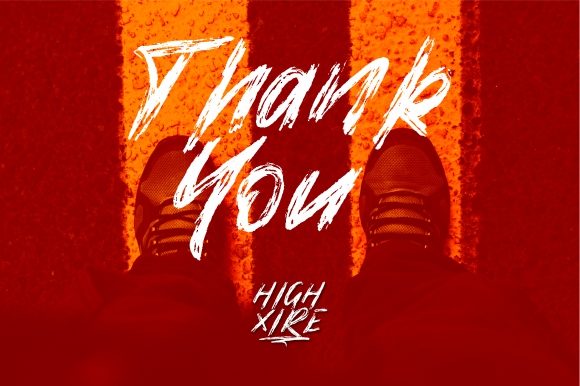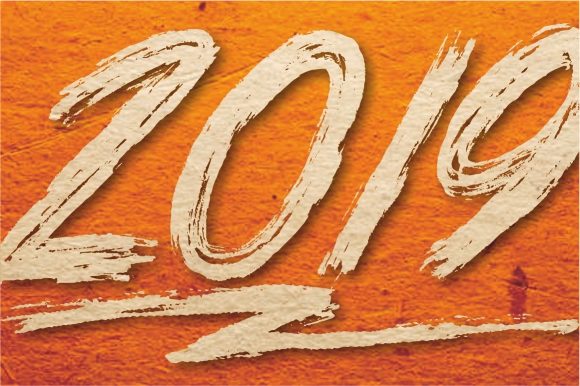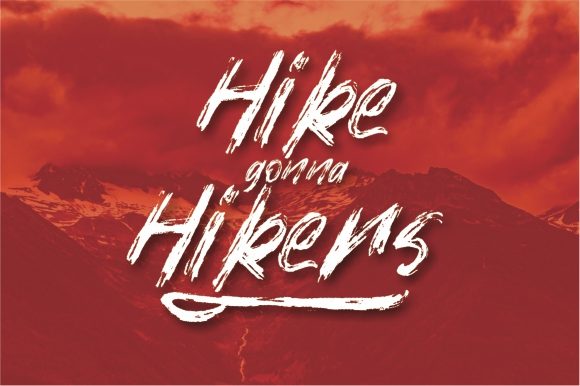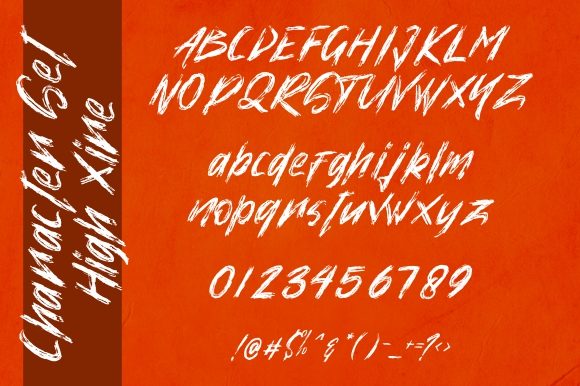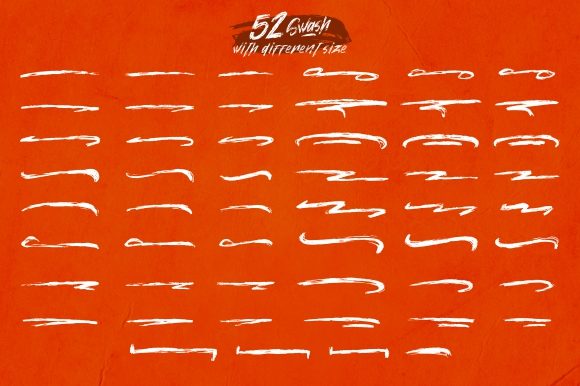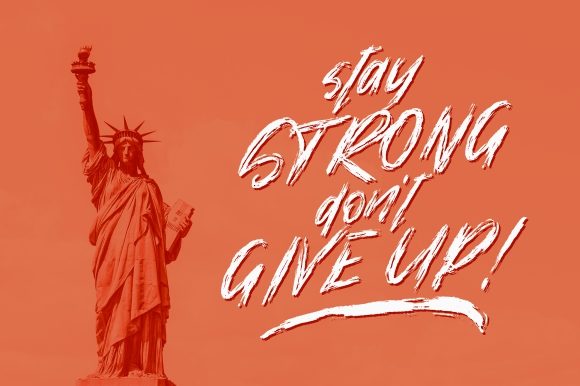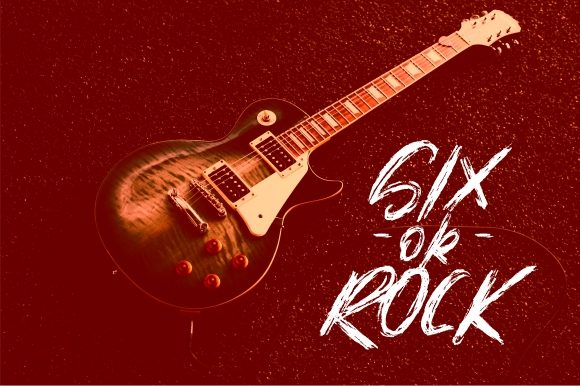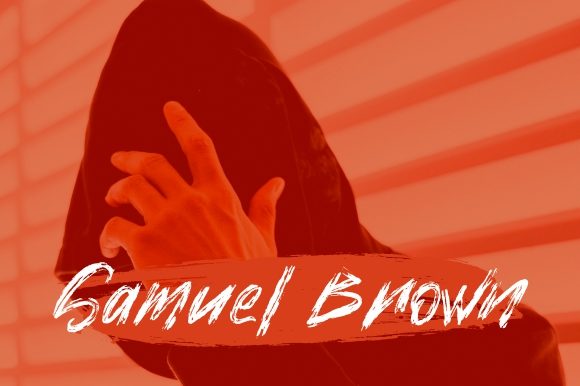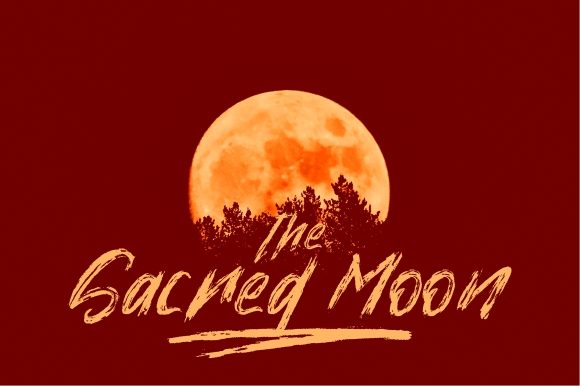
High Xire Font
The High Xire is an amazing brush font. It has attractive curves with a fresh urban edge, delivering an eye-catching style.
It’s perfect for logos, branding, handwritten quotes, product packaging, merchandise & social media posts.